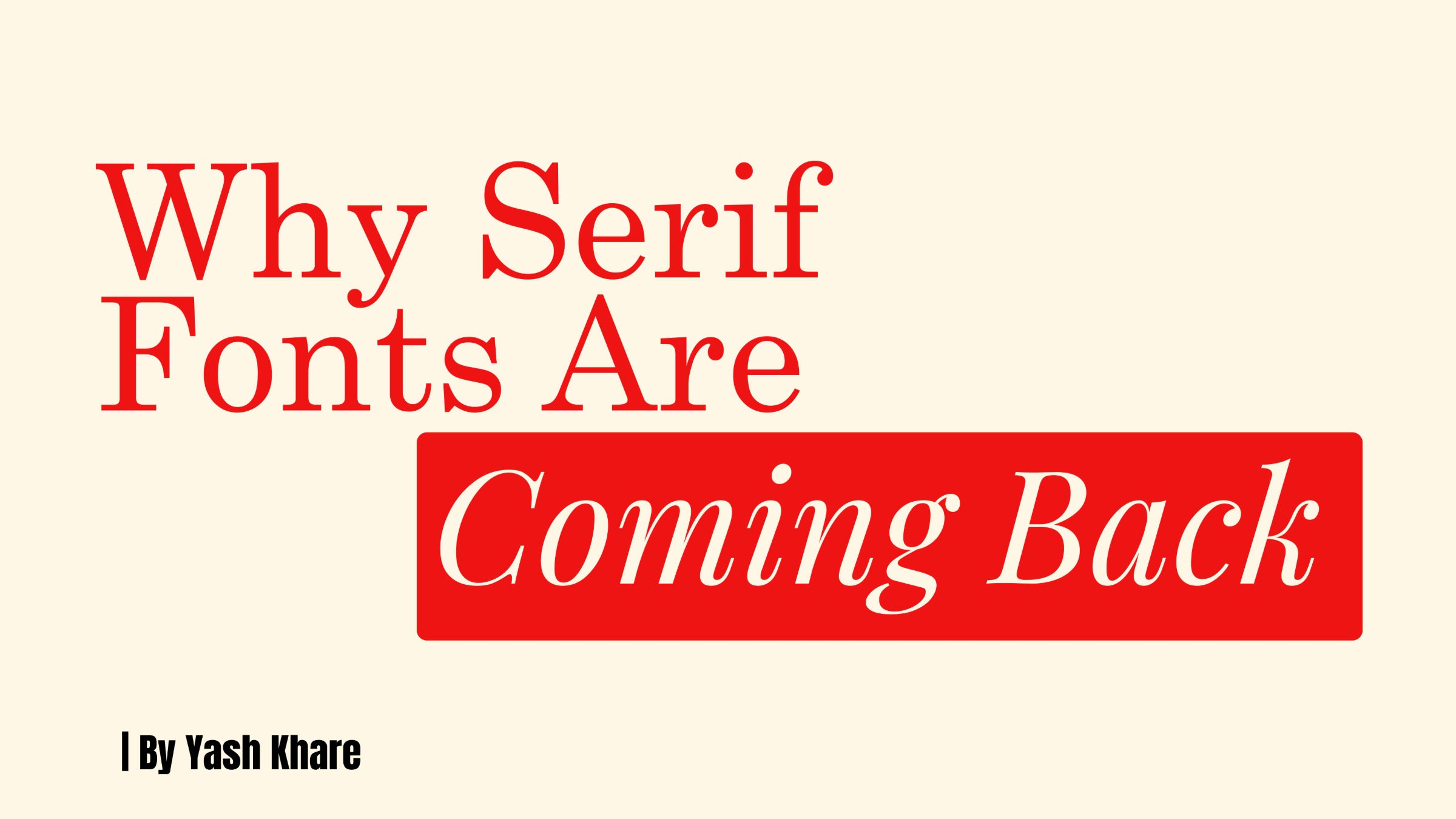
Why Serif Fonts Are Coming back | yash khare | Medium
Serif fonts are returning to screens. Here's how nostalgia, behavior shifts, and emotional branding are driving this quiet revolution.